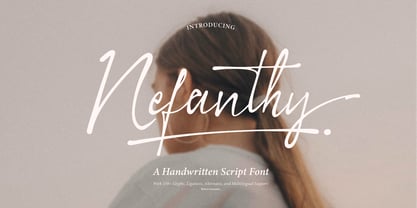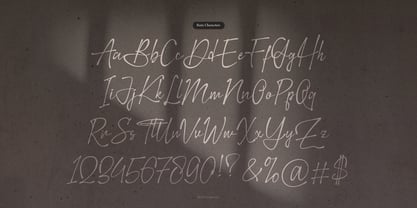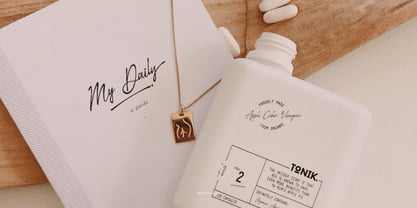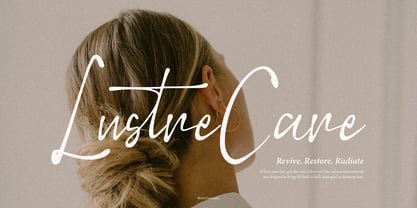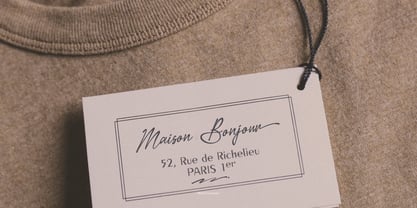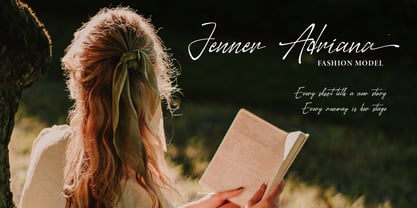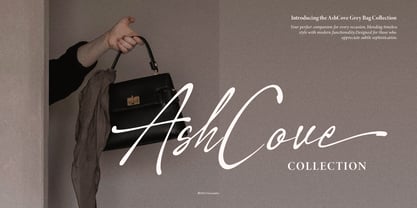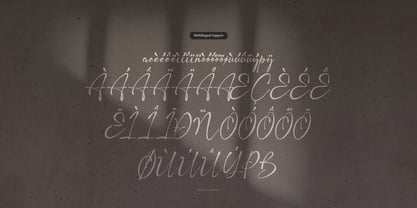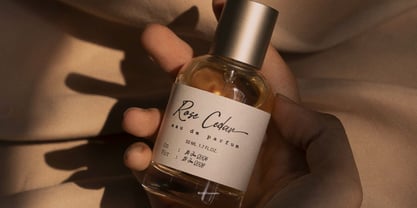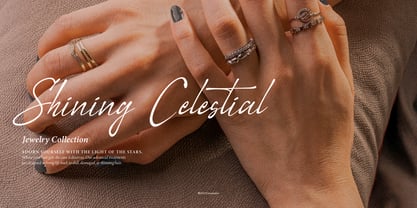
Nefanthy
The Nefanthy Font Family was designed by Dede Nugraha and published by Denustudio. Nefanthy contains 2 styles and family package options. More about this family
Nefanthy | Handwritten Script Font, from Denustudios, suitable for any projects such as: logos, branding projects, homeware designs, product packaging, mugs, quotes, posters, shopping bags, t-shirts, book covers, name card, invitation cards, greeting cards, label, photography, watermark, special events, and all your other lovely projects that need a Handwritten Script Font taste.
• Regular and Italic
• Standard glyphs
• Alternate and Ligature
• Fonts include multilingual support